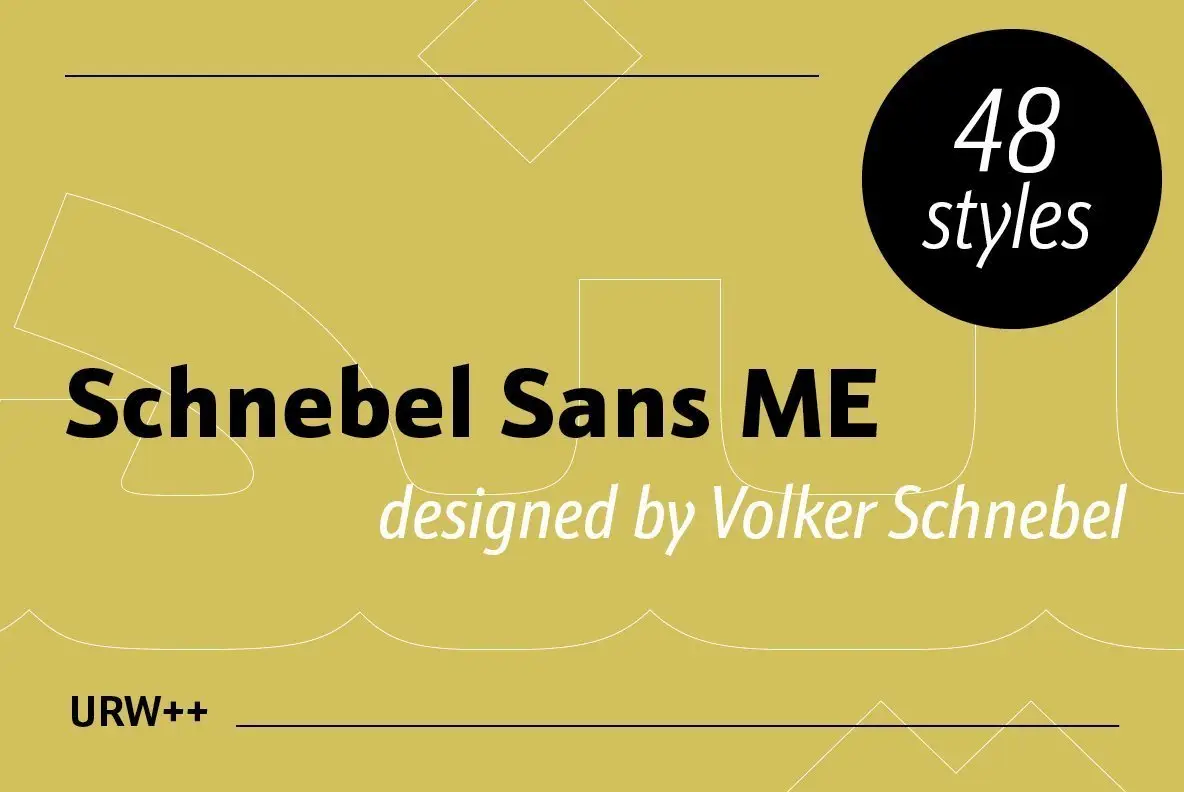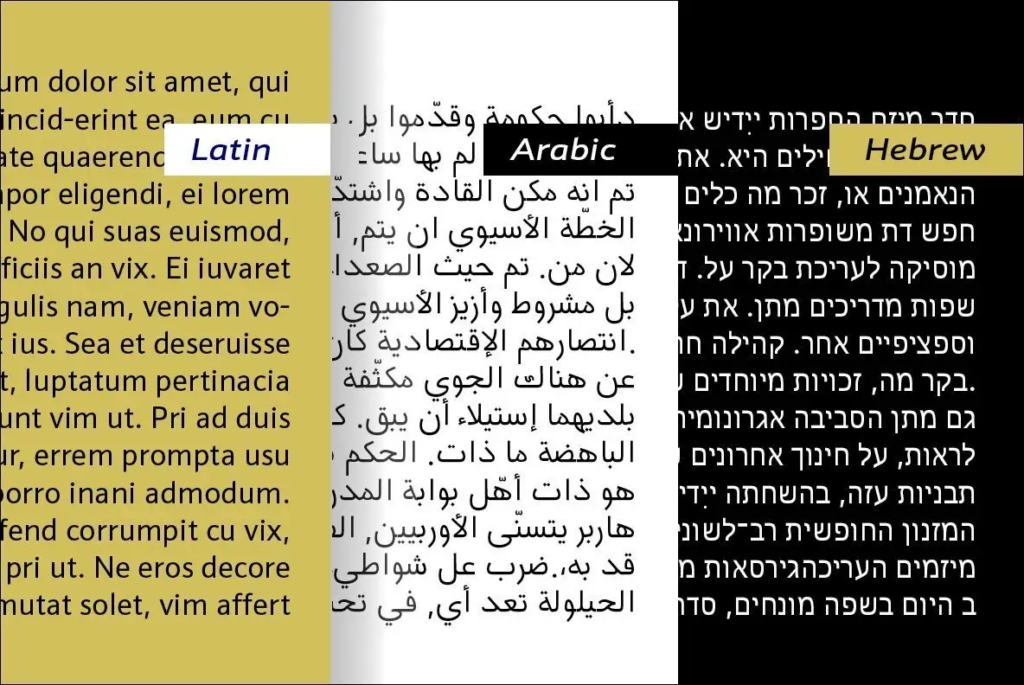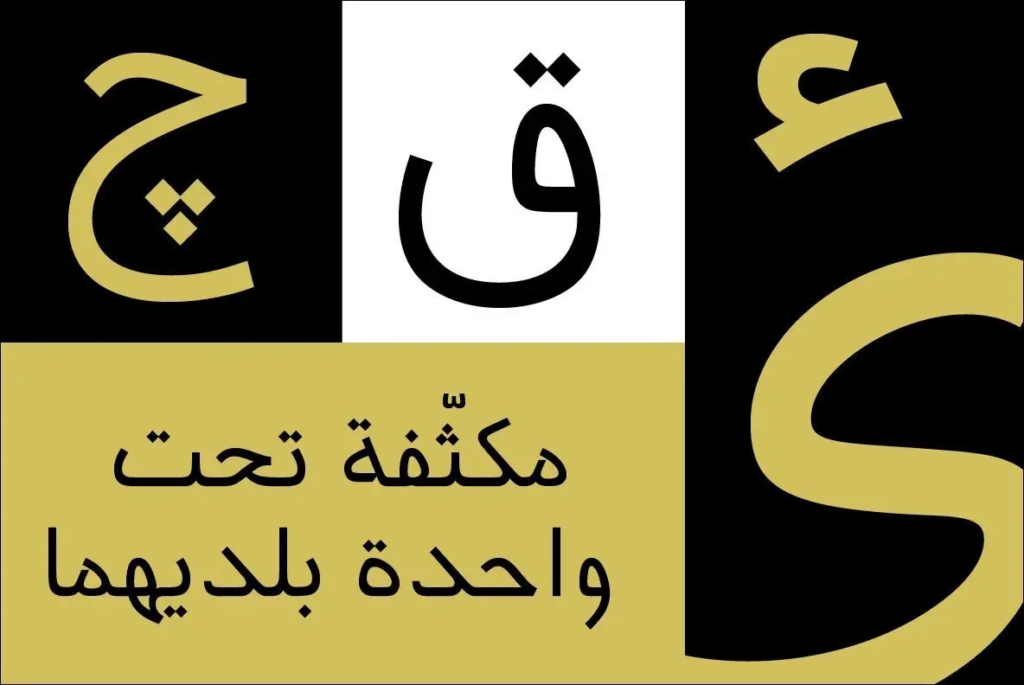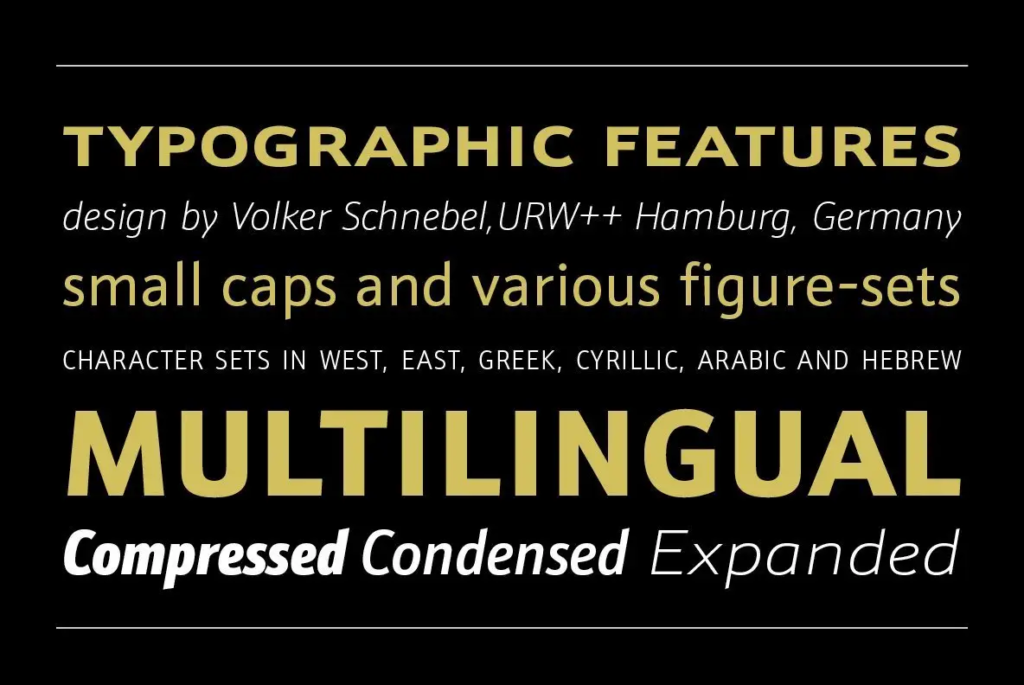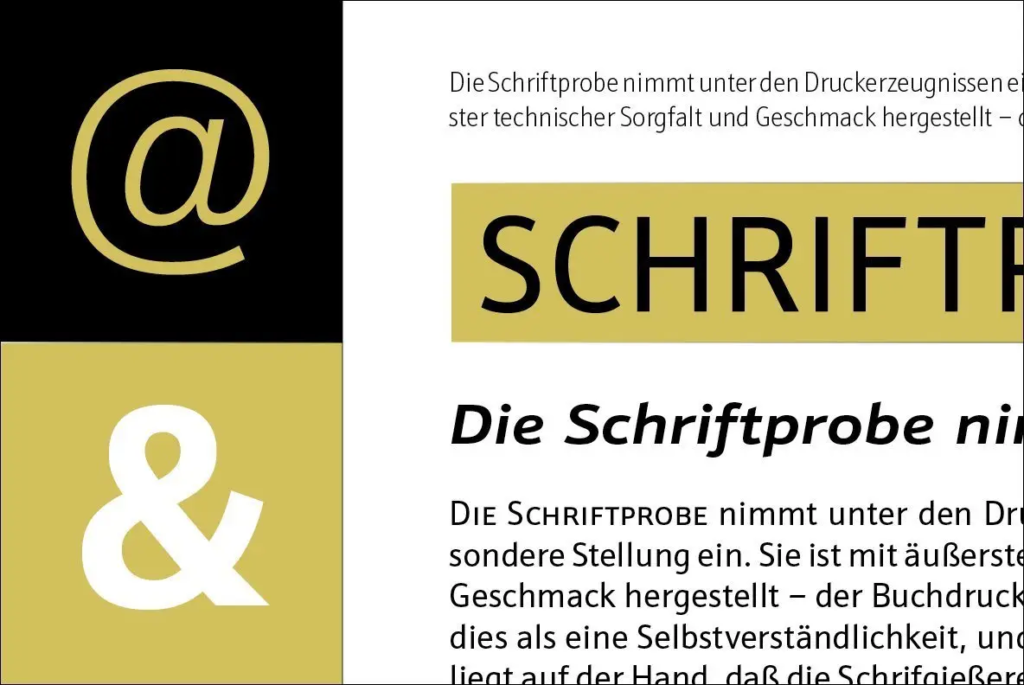
Schnebel Sans ME Font Family
Schnebel Sans is a thoughtfully crafted typeface that brings the clarity and precision of geometric sans-serif design to Persian, Arabic, and English scripts. With its clean lines and balanced proportions, this font offers designers a versatile tool for creating sophisticated work that flows seamlessly across languages while maintaining visual consistency.
Design Characteristics:
• Clean, geometric sans-serif design
• Balanced proportions for excellent readability
• Contemporary aesthetic with timeless appeal
• Versatile character suitable for multiple applications
• Elegant, refined letterforms
Persian (Farsi) Script:
• Complete Persian character set
• Full support for Persian-specific characters (گ، چ، پ، ژ)
• Correct representation of Persian numerals
• Proper character connections and positioning
• Clean sans-serif styling across all letters
Arabic Script:
• Coordinated Arabic design matching Persian style
• Complete Arabic character set
• Full support for Arabic diacritics and marks
• Harmonious weight and proportion
• Geometric clarity with authentic character
English/Latin Script:
• Coordinated sans-serif design matching Persian/Arabic style
• Complete uppercase and lowercase characters
• Numerals, punctuation, and special characters
• Clean, professional appearance
• Excellent legibility at all sizes
• International Branding: Cohesive identities across Persian, Arabic, and English markets
• Corporate Communications: Professional materials for global companies
• Web Design: Clean, modern digital typography
• Print Materials: Brochures, flyers, magazines, publications
• Packaging: Sophisticated product presentation
• Signage: Professional multilingual displays
• Mobile Applications: Clean interface design
• Editorial Design: Contemporary publications
• Wayfinding: Clear, legible directional systems
• Three Scripts, One Design: Consistent identity across Persian, Arabic, and English
• Geometric Clarity: Clean, contemporary sans-serif aesthetic
• Comprehensive Support: All characters for all three languages
• Professional Quality: High-caliber font for commercial use
• Excellent Readability: Clear at any size
• Time-Saving: One font for three languages—no mixing required
Key Features of Schnebel Sans Font:
• Complete support for Persian (Farsi), Arabic, and English scripts
• Clean, geometric sans-serif design
• Full character sets for each script
• Contemporary, elegant aesthetic
• Perfect for international and contemporary design projects
• Graphic designers working across Middle Eastern and global markets
• International brand specialists
• Corporate communications professionals
• Web and digital designers
• Print and publication designers
• Anyone needing clean, modern multilingual typography